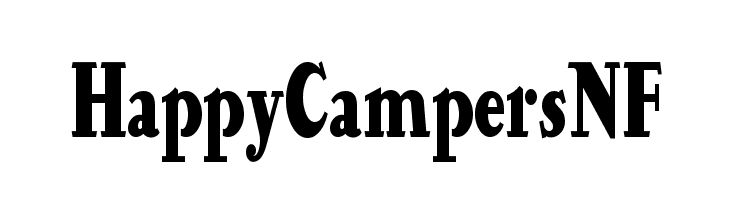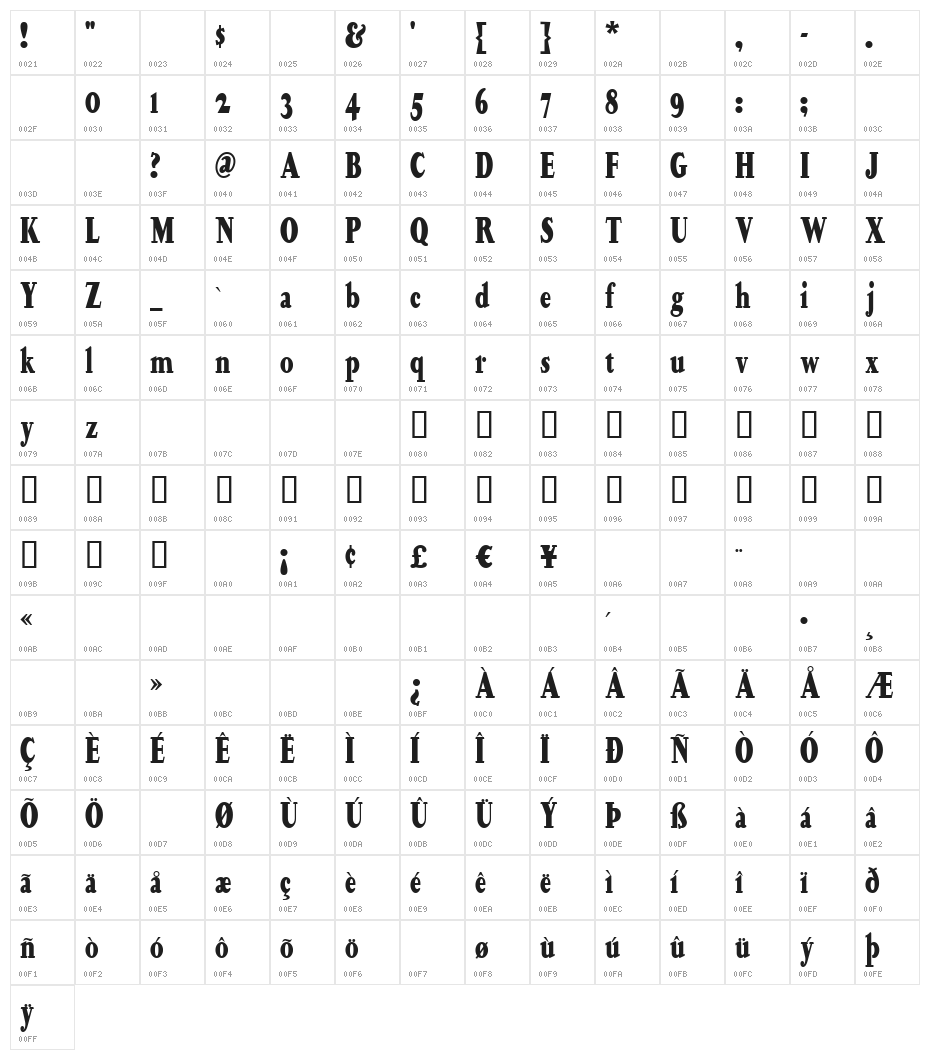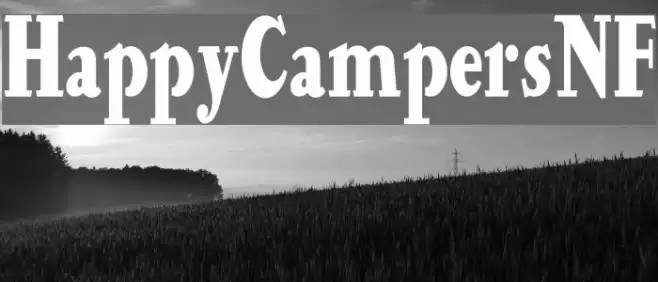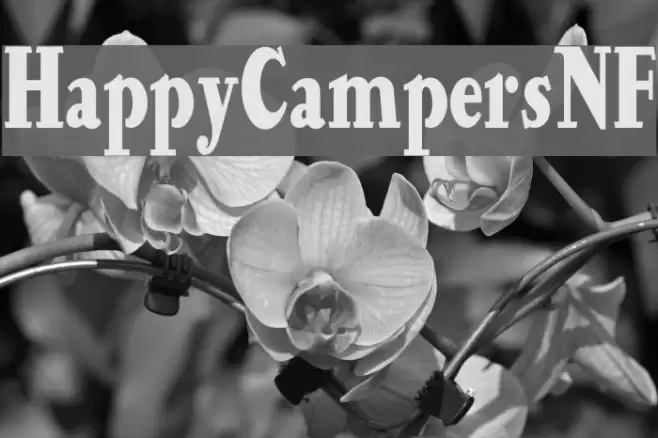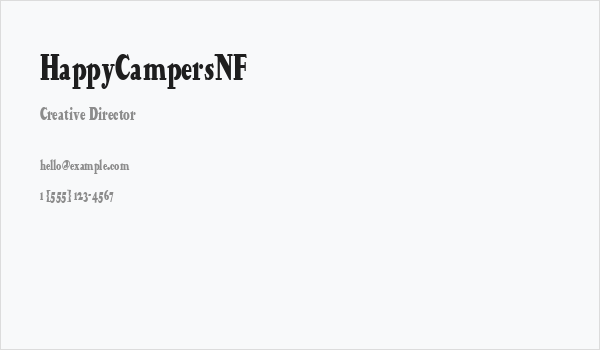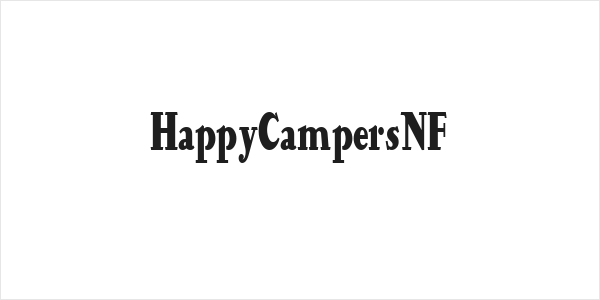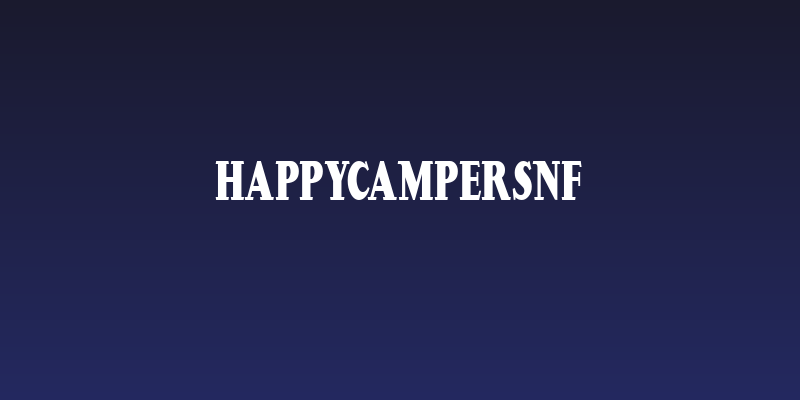
HappyCampersNF Font
HappyCampersNF Description
This font features a bold and robust design with strong serifs and a classic feel. The uppercase letters are tall and commanding, while the lowercase letters maintain a consistent weight and structure. The numerals are equally bold, ensuring readability and impact. Special characters are designed with the same attention to detail, providing a cohesive look across all glyphs. The overall style is reminiscent of vintage typefaces, making it suitable for projects that require a touch of nostalgia and authority.
| Proposed Projects | Ideal for branding, headlines, posters, and any design project that requires a vintage or authoritative feel. |